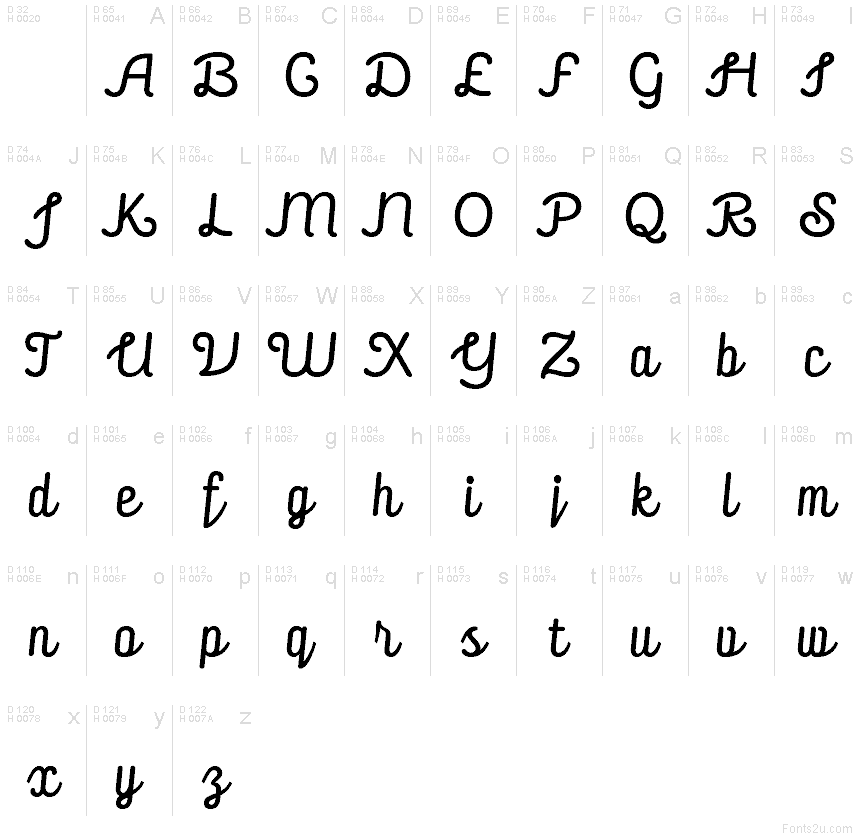
CS Belsy Regular Demo
CS Belsy font by Craft Supply Co. is a friendly and modern handwritten font. Casual and fluid, the script is characterized by smooth rounded lines, natural curves, and an approachable look that relaxes any design it decorates.